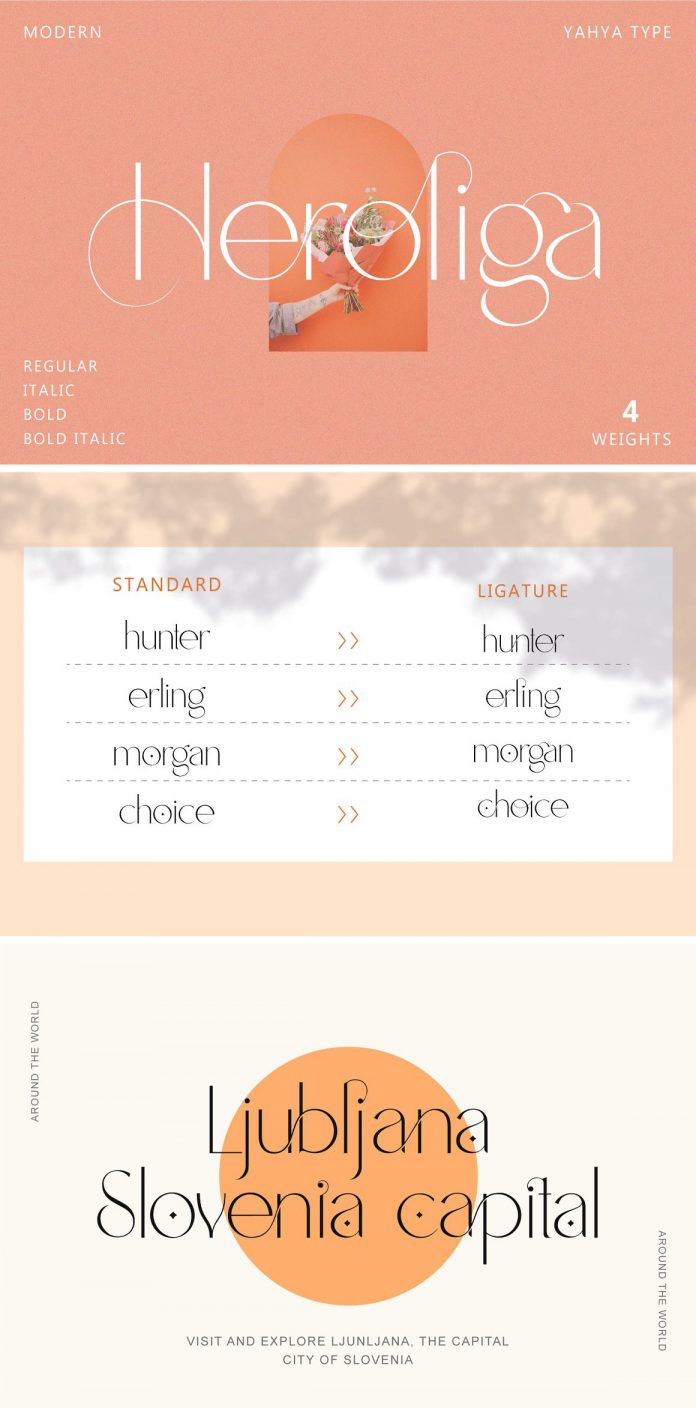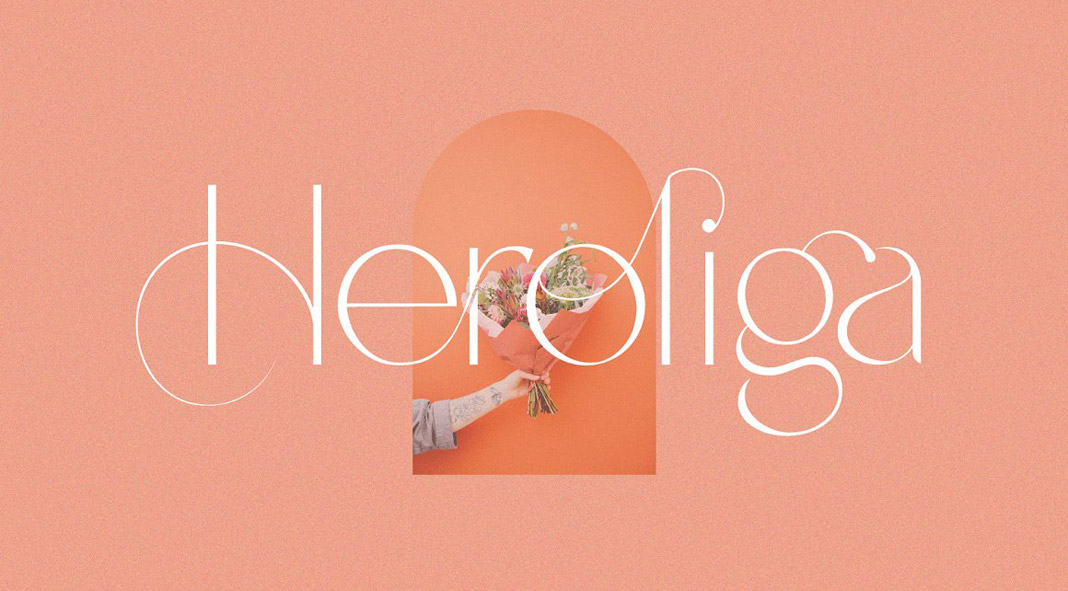
Heroliga, an elegant sans serif font by Yahya Type.
Heroliga is an elegant sans serif font that comes with special alternative letters as well as support for multiple languages. The typeface is a great choice for logo designs, magazine headers, packaging, branding, and clothing, just to name a few.